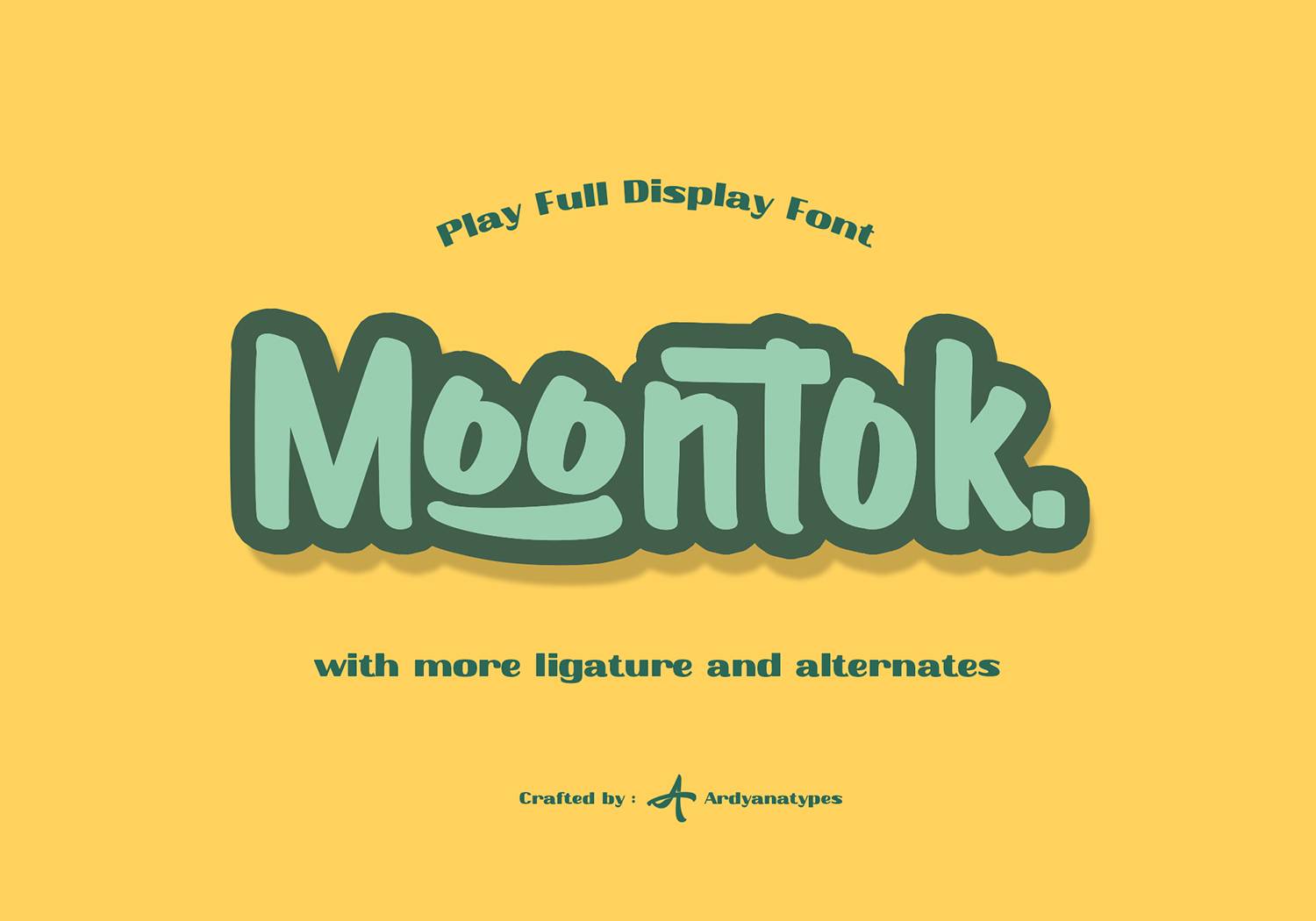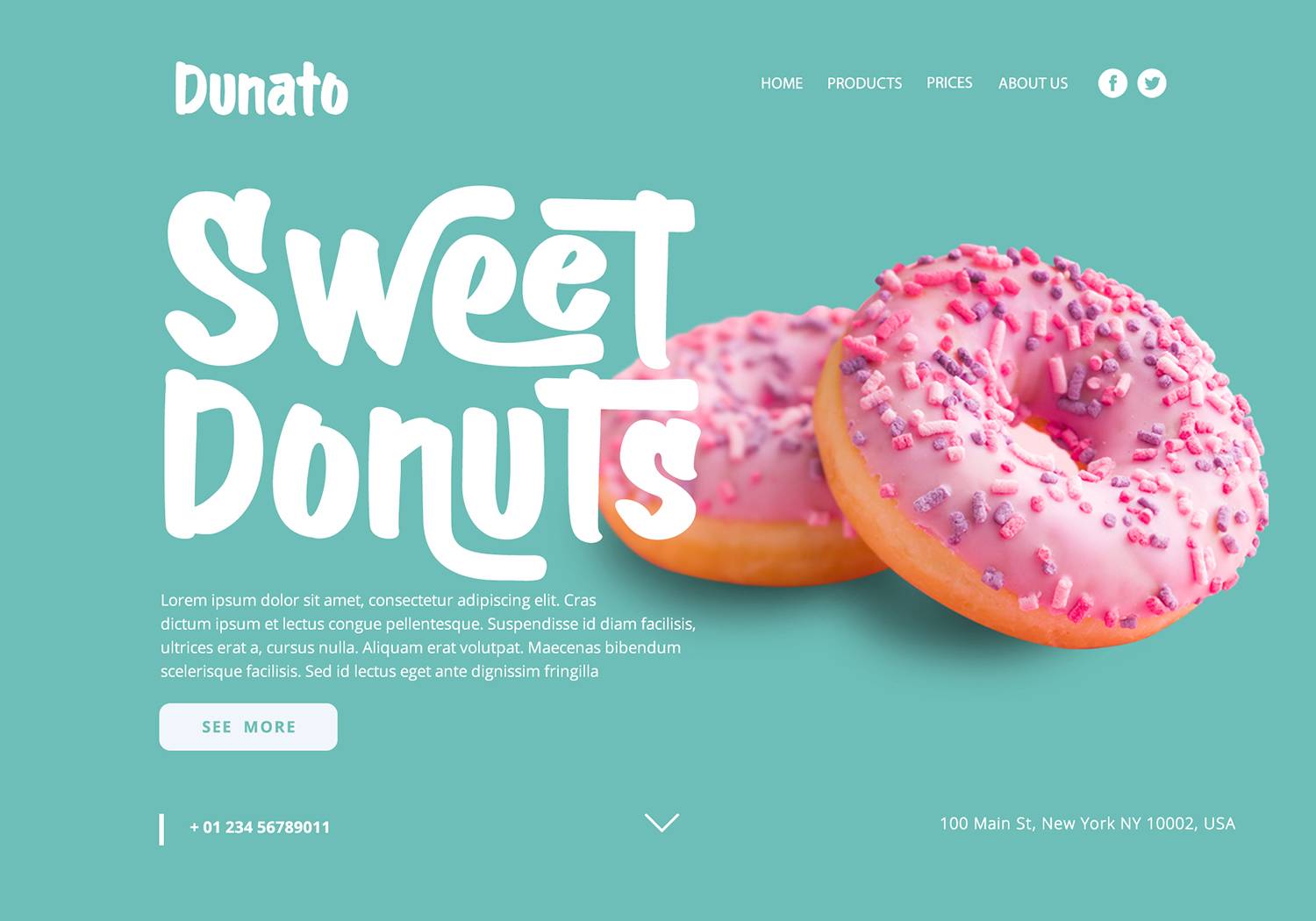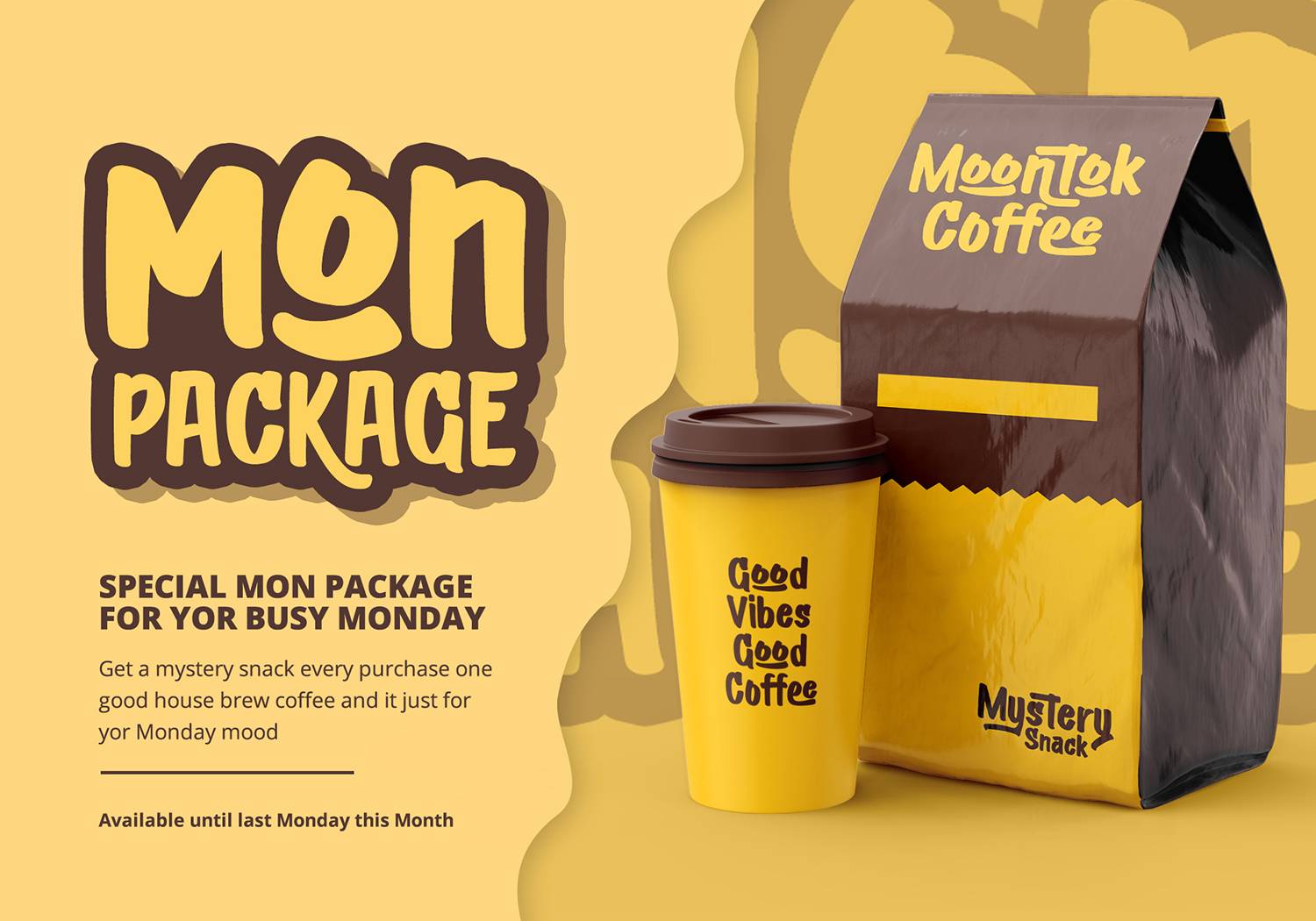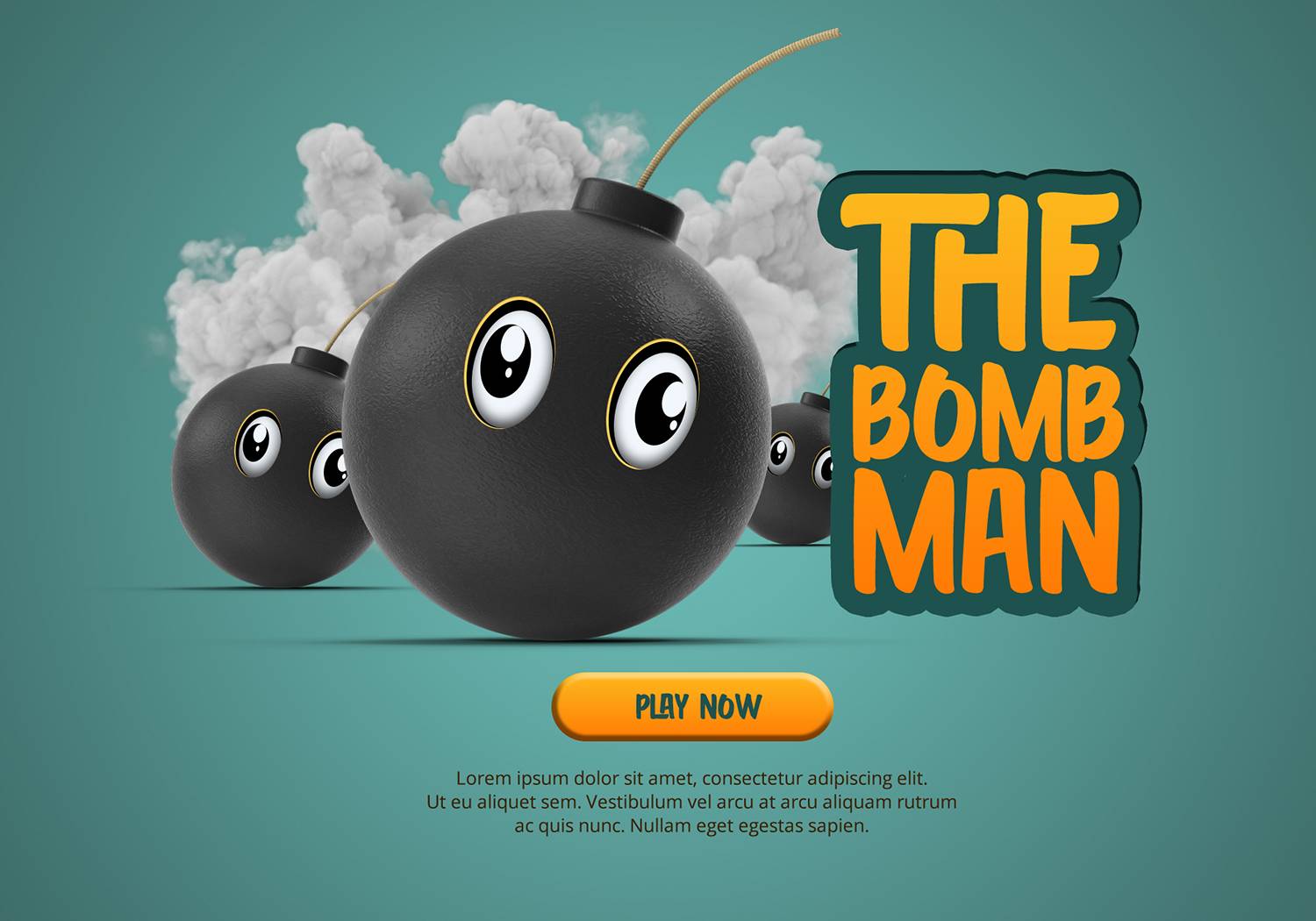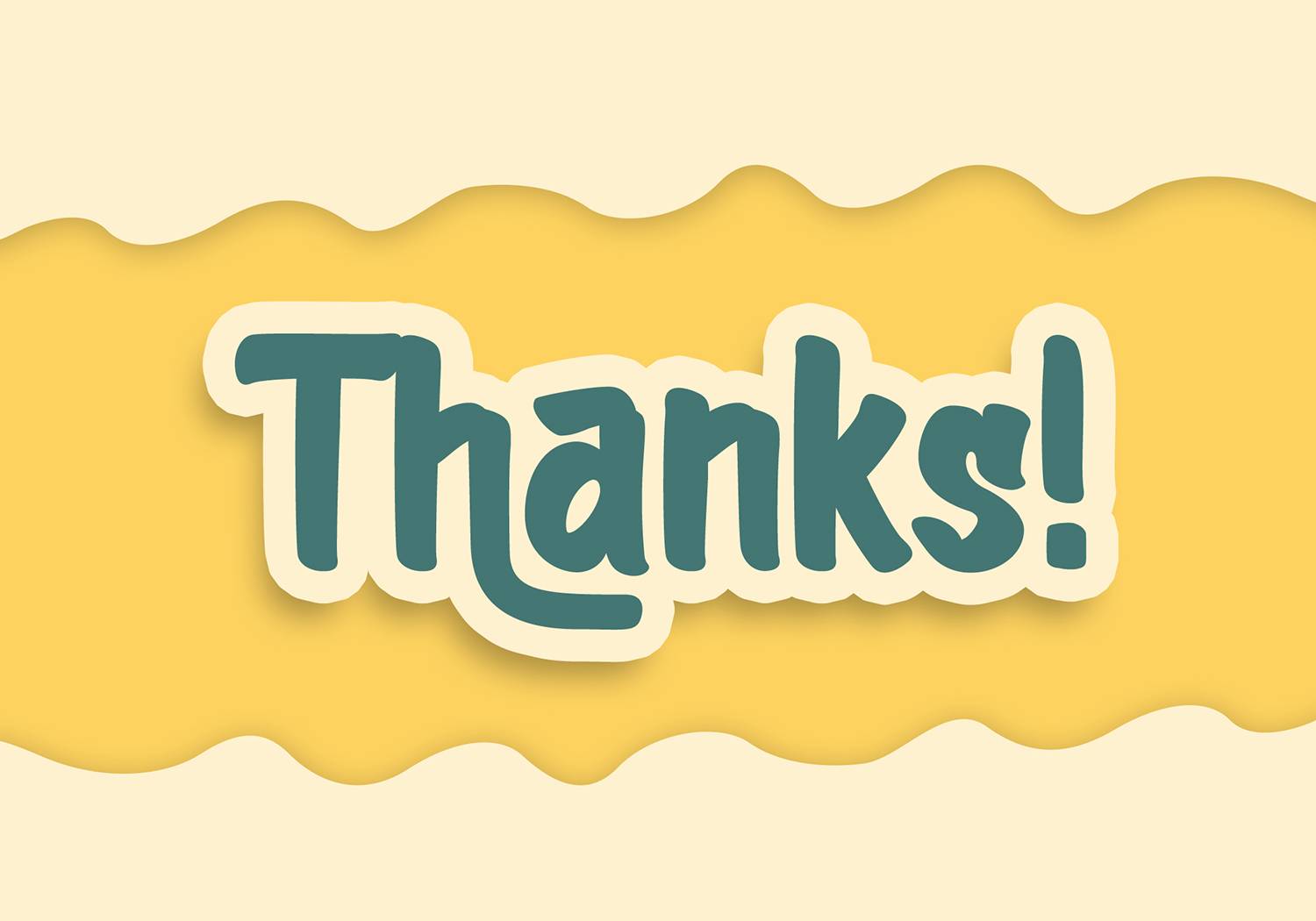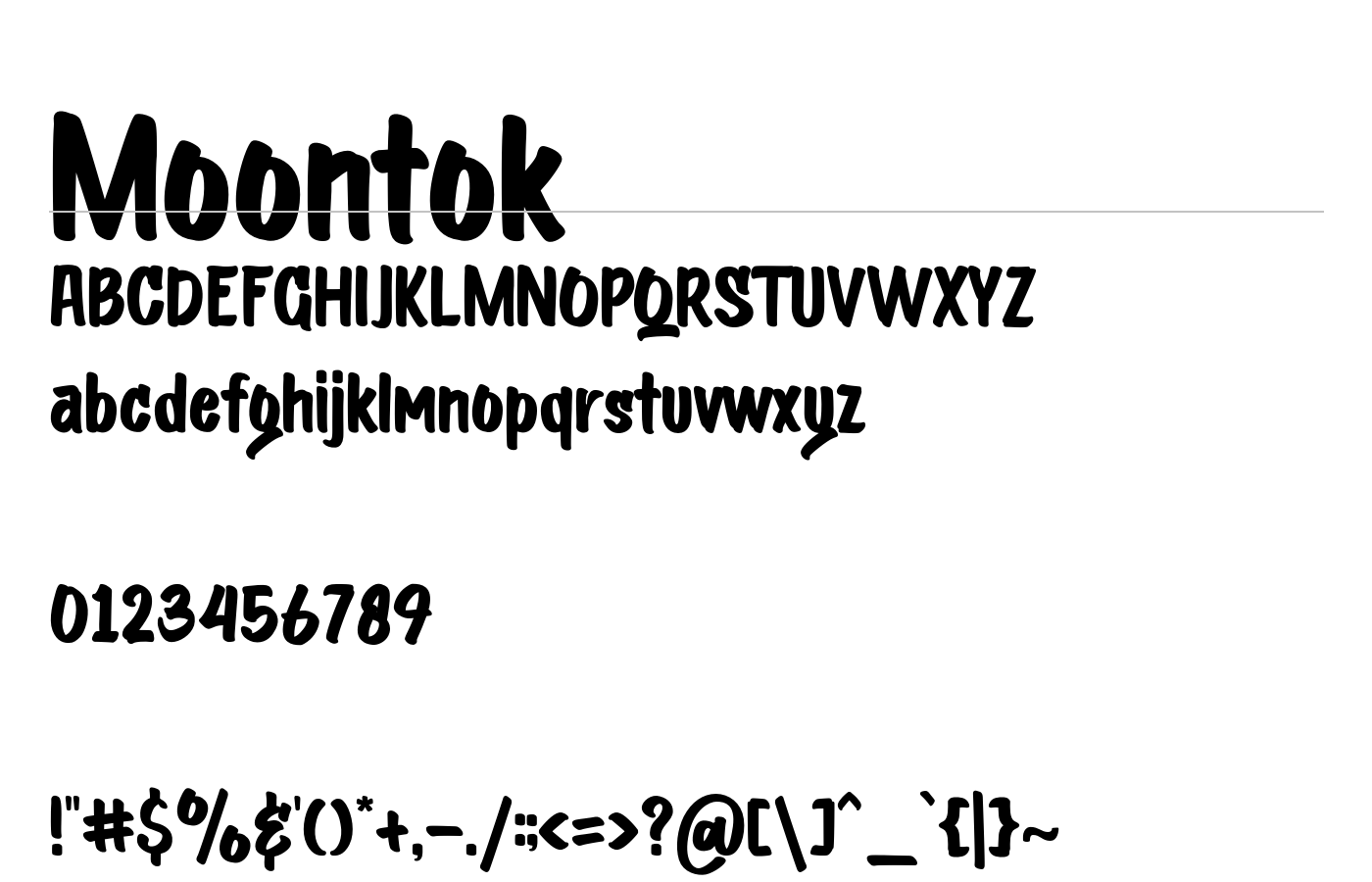
Moontok is a bold, playful sans serif font with a hand-drawn, casual feel. Its thick, slightly irregular strokes and lively letterforms make it ideal for fun, informal designs like children’s books, posters, or branding that wants to convey friendliness and creativity. This font works best in headlines or display text where its quirky personality can stand out and add a cheerful, approachable vibe.
Moontok Font
About Moontok Font
| Font family | Moontok Font |
| Designer | Ardyanatypes |